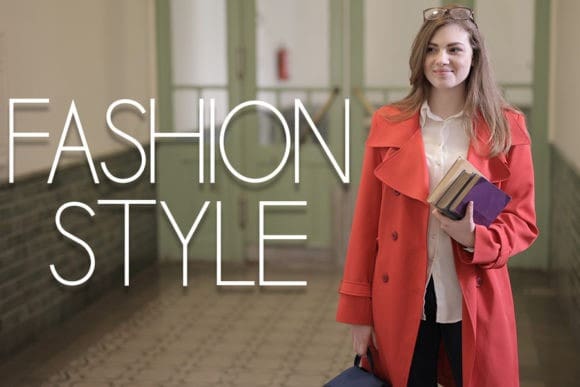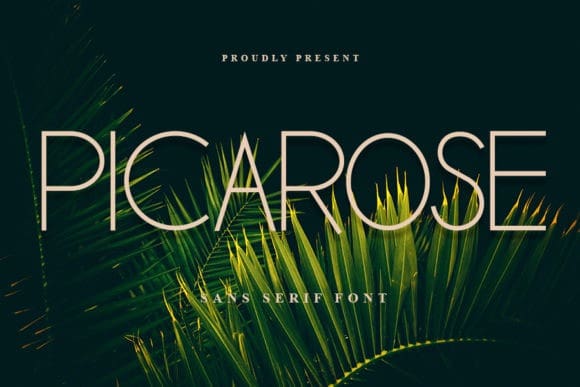
Picarose Font
Picarose Font is a minimalistic and modern sans serif font. Not too thin and not too thick, balanced and varied, Picarose was designed to enhance the beauty of your projects.